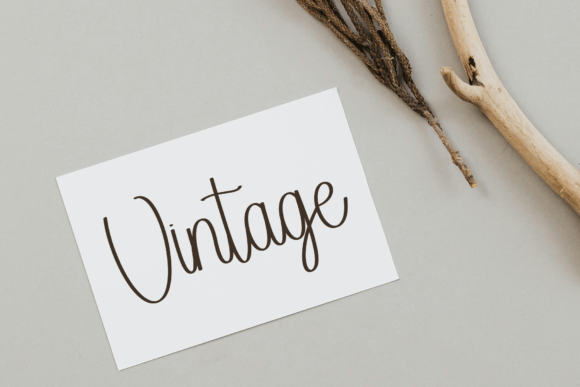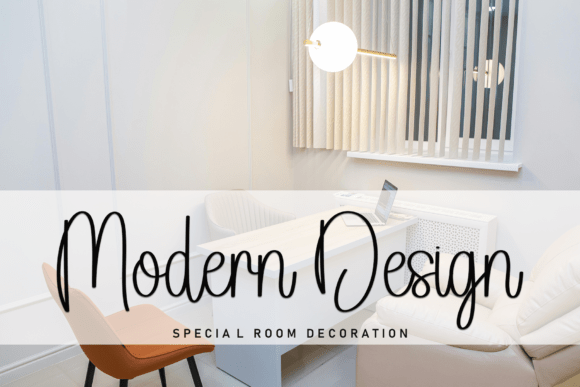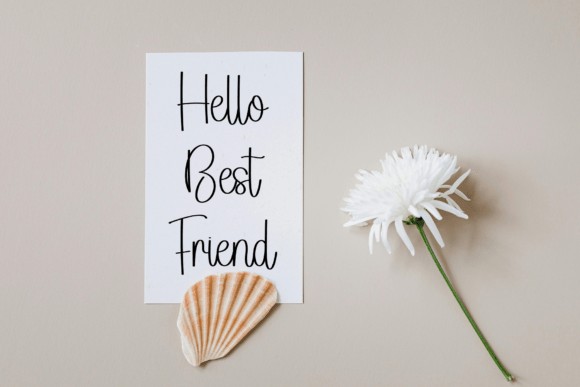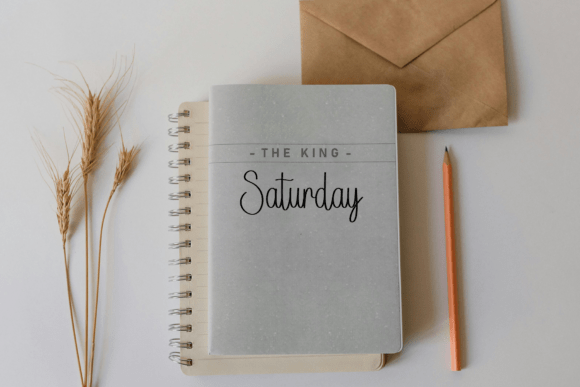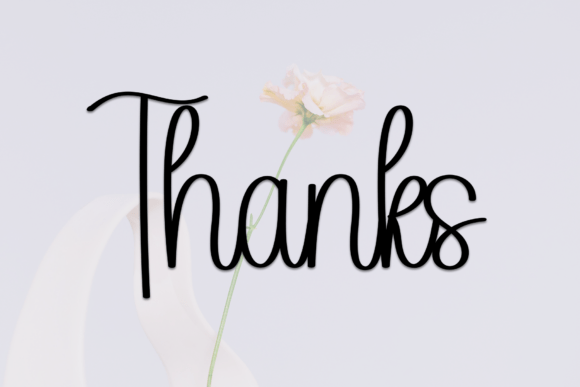
The Birth of a Trendy Font: Unveiling the Magic of Callifornia Font
Have you ever sat at your desk, staring at a blank sheet of paper, and suddenly, a spark of creativity hits you? Maybe it’s the sound of a coffee shop in the background or the smell of freshly brewed coffee, but whatever it is, it gets your creative juices flowing. For designers, this moment is pure bliss, and it’s exactly what happens when you discover the perfect font to bring your ideas to life. For me, that moment came when I stumbled upon the Callifornia Font – a handwritten masterpiece that screams relaxation and sophistication.
Designed to evoke the feeling of a carefree summer day, the Callifornia Font is perfect for branding, logos, wedding supplies, greeting cards, fashion, lookbooks, and marketing promotions. Its unique, handwritten style, reminiscent of a marker drawn on paper, gives it a luxurious and elegant yet casual feel that’s hard to resist. Whether you’re a seasoned designer or just starting out, the Callifornia Font is an invaluable addition to your toolkit, allowing you to create designs that exude a relaxed, sporty vibe.
California Font Key Features
- Size: The font comes in multiple weights, ranging from Light to Extra Bold, allowing for a high degree of flexibility in typography.
- Resolution: California Font is designed for high-resolution displays and prints, making it suitable for use in various mediums, including digital screens and printed materials.
- Unique Characteristics: The font features a distinctive, modern design with a focus on clean lines, rounded edges, and a friendly feel, making it an ideal choice for branding and identity projects.
- Font Family: California Font is a part of a larger font family that includes multiple weights, styles, and languages, providing users with a comprehensive typographic solution.
California Font Review
First off, I’ve gotta say I’m loving the vibe of California Font ✨. The relaxed, casual feel of this font is perfect for anything from branding to print materials. The subtle texture and imperfections give it a human touch that’s hard to find in more polished fonts. It’s the perfect choice for anyone looking to create a laid-back, West Coast-inspired aesthetic.
- Relaxed, casual feel ✨
- Perfect for branding and print materials
- Subtle texture and imperfections add a human touch
One thing to keep in mind is that California Font can be a bit challenging to read at smaller font sizes ⚠️. The texture and imperfections can make it harder to distinguish between certain letters, especially in sans-serif text. Additionally, the font can be a bit too casual for more formal or professional applications.
- Can be difficult to read at smaller font sizes ⚠️
- May not be suitable for formal or professional applications
Overall, I think California Font is a great choice for anyone looking to create a relaxed, casual aesthetic. Just be aware of its limitations and use it wisely.
Getting the Most Out of California Font
For optimal results, use California Font for titles, headings, and other emphasis text. Experiment with different font sizes and colors to create visual hierarchy and balance in your design.
California Font is commonly used for:
1. Food and beverage branding
2. Fashion and lifestyle marketing
3. Travel and tourism promotions